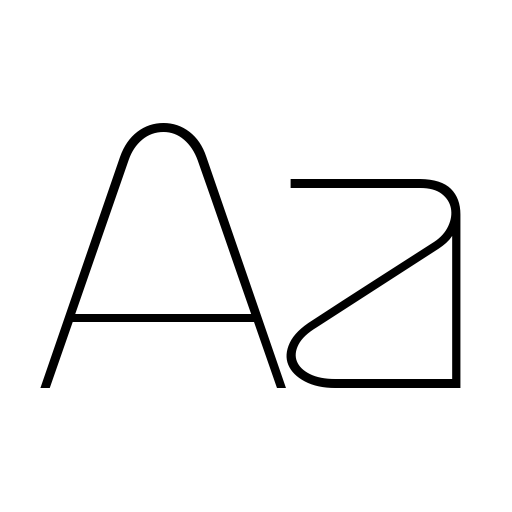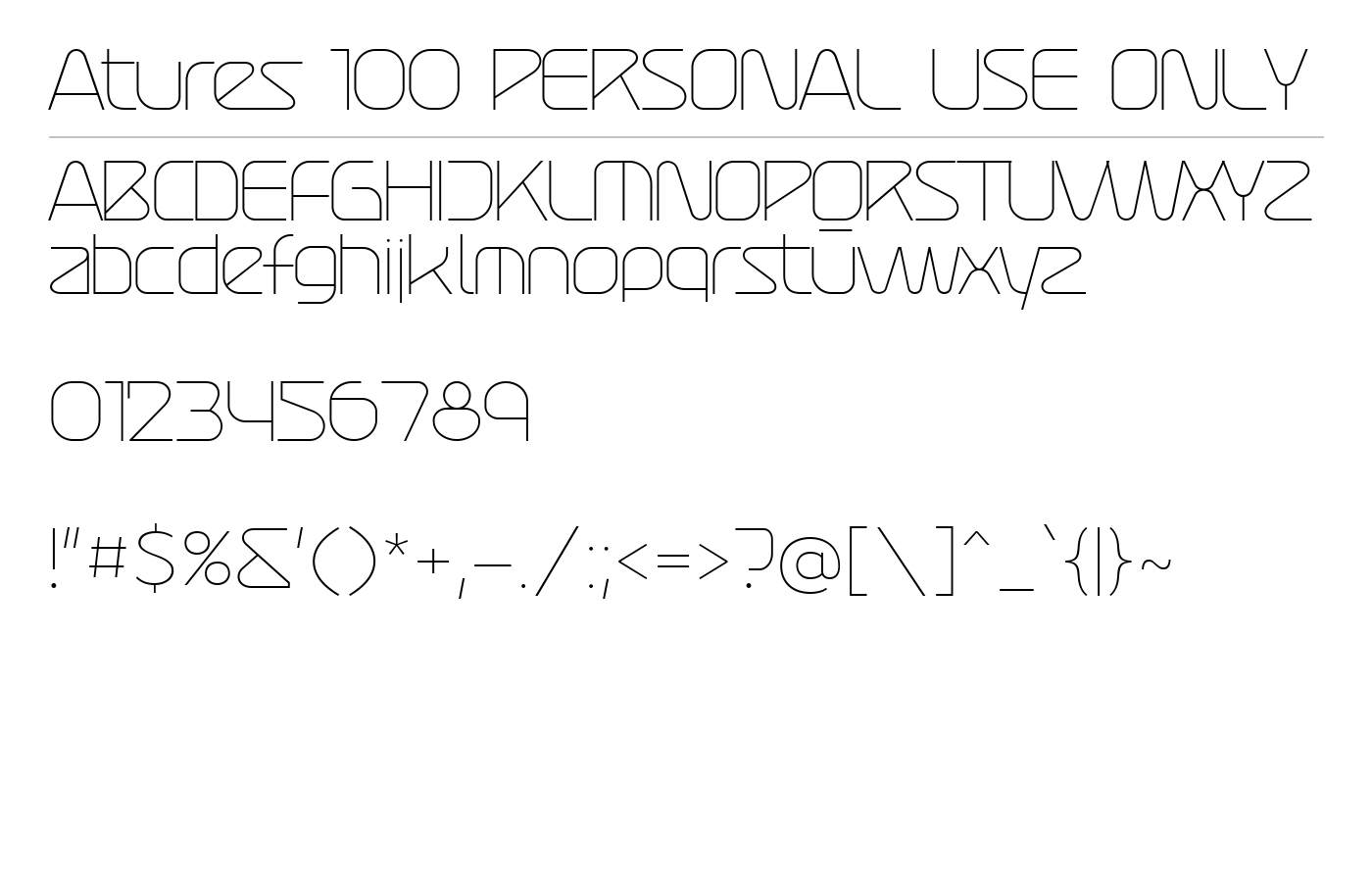
Atures 100 is a sleek, modern sans serif font characterized by its thin, geometric strokes and a futuristic, airy feel. Its narrow letterforms and unique angular details give it a clean, high-tech personality, making it ideal for contemporary branding, tech projects, and stylish editorial designs where a minimalist yet distinctive look is desired. This font works especially well in headlines and logos that need a sophisticated, modern edge without heavy visual weight.